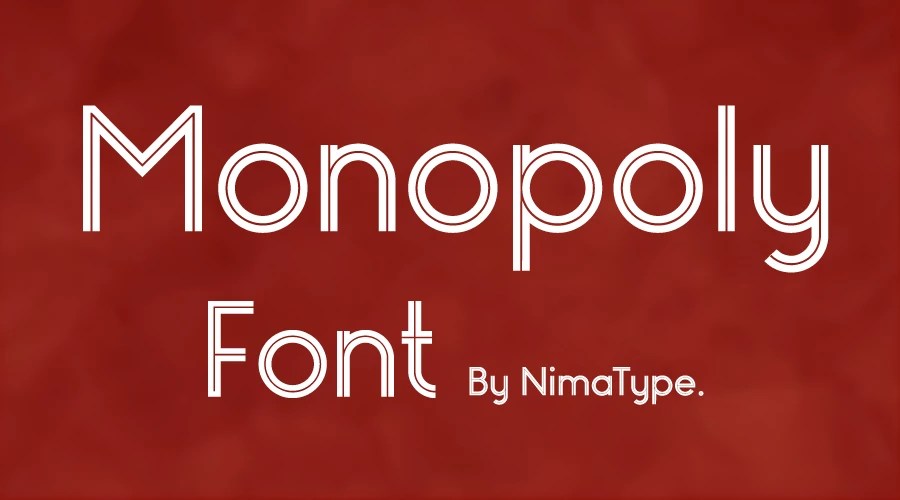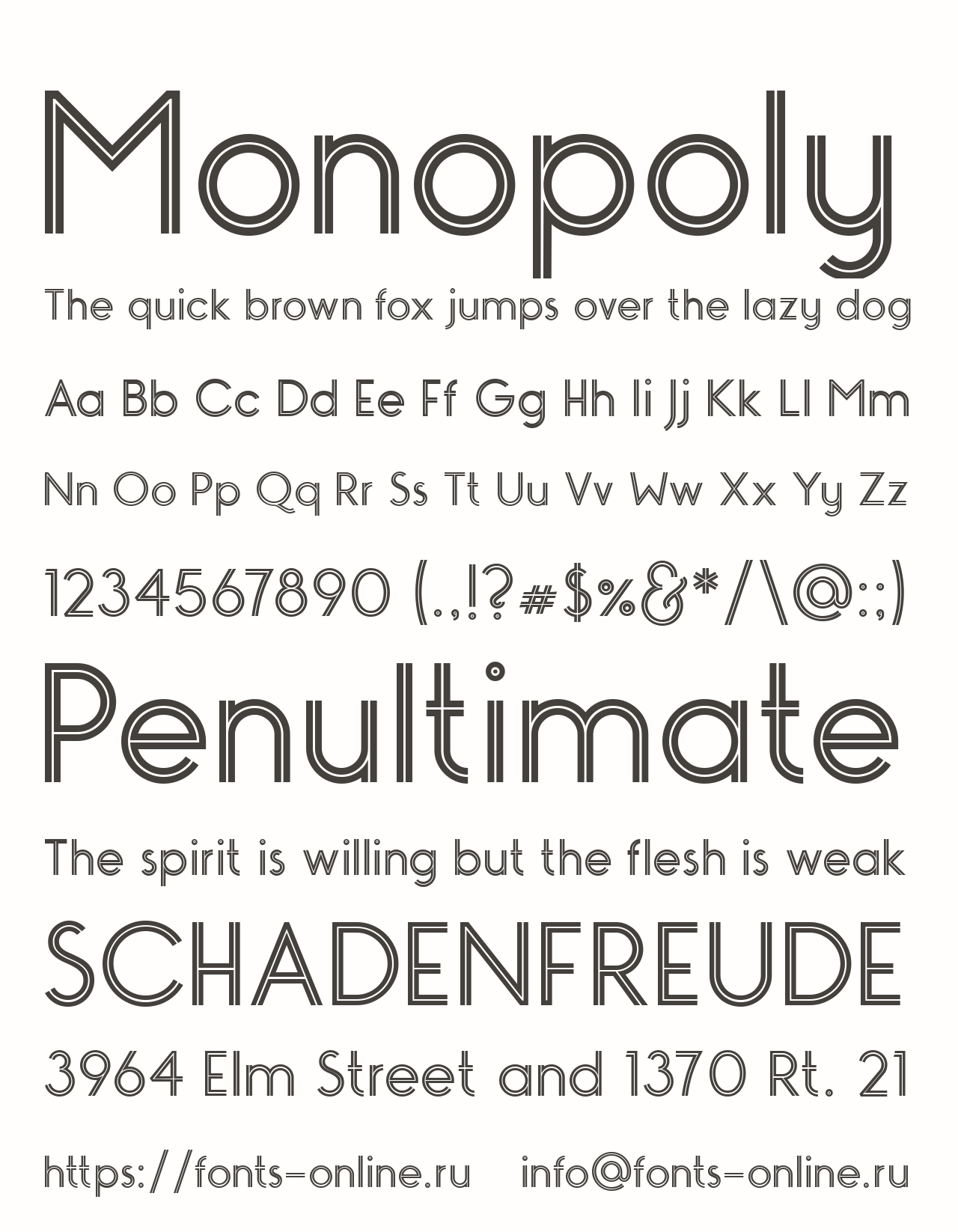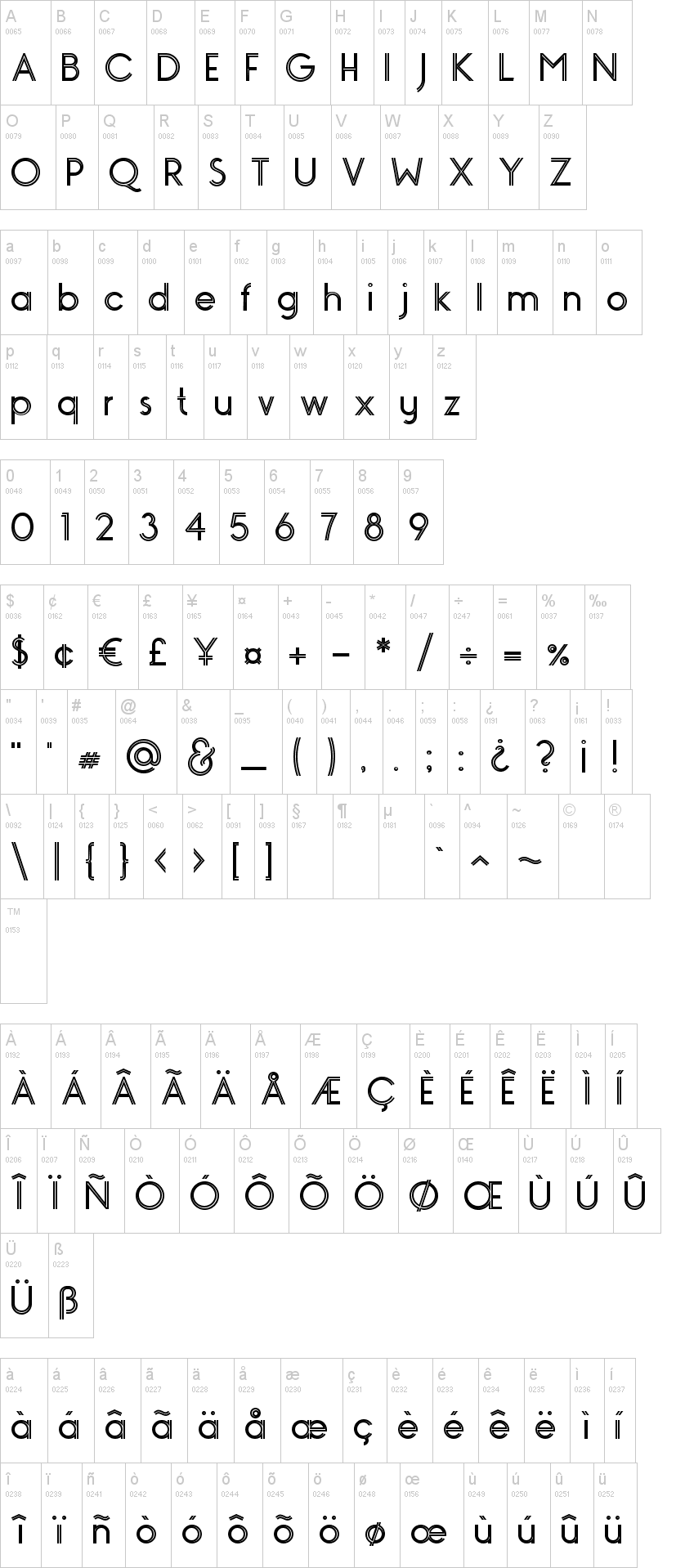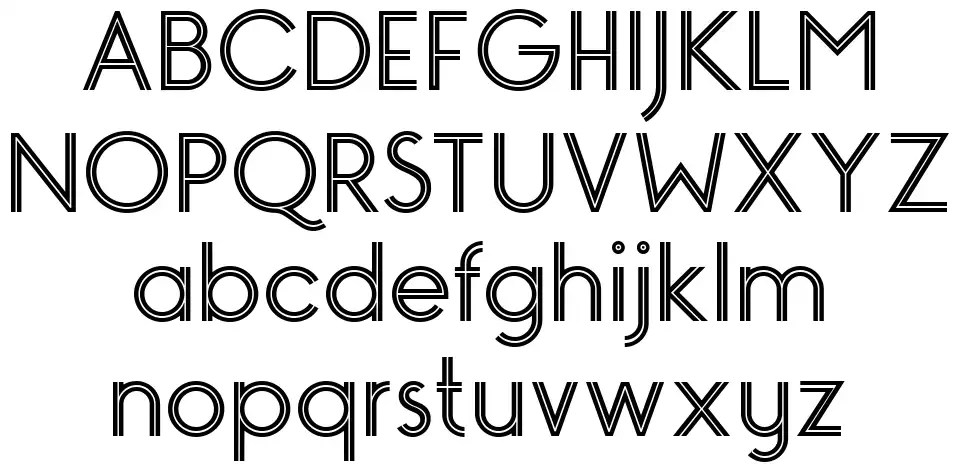
Monopoly Board Font . This edition of the monopoly board game is from 1985, and was sold by parker brothers in the u.s. The name of the font that most closely resembles the one used in the monopoly boardgame logo is a typeface by the name of monopoloy. In the game, players move around the board buying or trading property, developing their properties and. In basic > sans serif. Originally created by italian type designer roberto de vicq de cumptich in 2005, this font is. Monopoly font is the perfect typeface for anyone looking to bring an iconic game to life. It has the logo in the kabel typeface. The font is famous for its basic, clean, and smooth. It was designed in 2016 by the font. Thank you to the person who helped me find the best software to create my own monopoly game.
The name of the font that most closely resembles the one used in the monopoly boardgame logo is a typeface by the name of monopoloy. Monopoly font is the perfect typeface for anyone looking to bring an iconic game to life. The font is famous for its basic, clean, and smooth. This edition of the monopoly board game is from 1985, and was sold by parker brothers in the u.s. It was designed in 2016 by the font. In basic > sans serif. It has the logo in the kabel typeface. Originally created by italian type designer roberto de vicq de cumptich in 2005, this font is. In the game, players move around the board buying or trading property, developing their properties and. Thank you to the person who helped me find the best software to create my own monopoly game.
Monopoly Board Font Thank you to the person who helped me find the best software to create my own monopoly game. Originally created by italian type designer roberto de vicq de cumptich in 2005, this font is. In basic > sans serif. Thank you to the person who helped me find the best software to create my own monopoly game. The name of the font that most closely resembles the one used in the monopoly boardgame logo is a typeface by the name of monopoloy. In the game, players move around the board buying or trading property, developing their properties and. This edition of the monopoly board game is from 1985, and was sold by parker brothers in the u.s. Monopoly font is the perfect typeface for anyone looking to bring an iconic game to life. It has the logo in the kabel typeface. The font is famous for its basic, clean, and smooth. It was designed in 2016 by the font.
Monopoly Font Free Download Monopoly Board Font The name of the font that most closely resembles the one used in the monopoly boardgame logo is a typeface by the name of monopoloy. Originally created by italian type designer roberto de vicq de cumptich in 2005, this font is. It has the logo in the kabel typeface. In the game, players move around the board buying or trading. Monopoly Board Font.
Monopoly Typeface Free Free Fonts Monopoly Board Font In the game, players move around the board buying or trading property, developing their properties and. Monopoly font is the perfect typeface for anyone looking to bring an iconic game to life. Originally created by italian type designer roberto de vicq de cumptich in 2005, this font is. It was designed in 2016 by the font. Thank you to the. Monopoly Board Font.
Monopoly Free Font Free Fonts Monopoly Board Font The font is famous for its basic, clean, and smooth. Monopoly font is the perfect typeface for anyone looking to bring an iconic game to life. This edition of the monopoly board game is from 1985, and was sold by parker brothers in the u.s. It has the logo in the kabel typeface. In the game, players move around the. Monopoly Board Font.
Monopoly 1.000 Fonts Free Download Monopoly Board Font The name of the font that most closely resembles the one used in the monopoly boardgame logo is a typeface by the name of monopoloy. It has the logo in the kabel typeface. Originally created by italian type designer roberto de vicq de cumptich in 2005, this font is. In the game, players move around the board buying or trading. Monopoly Board Font.
Monopoly Font Free Fonts Monopoly Board Font It has the logo in the kabel typeface. This edition of the monopoly board game is from 1985, and was sold by parker brothers in the u.s. The name of the font that most closely resembles the one used in the monopoly boardgame logo is a typeface by the name of monopoloy. In basic > sans serif. It was designed. Monopoly Board Font.
Monopoly font Monopoly Board Font In the game, players move around the board buying or trading property, developing their properties and. Thank you to the person who helped me find the best software to create my own monopoly game. In basic > sans serif. This edition of the monopoly board game is from 1985, and was sold by parker brothers in the u.s. Monopoly font. Monopoly Board Font.
Monopoly Free Font Free Fonts Fribly Monopoly Board Font It was designed in 2016 by the font. In basic > sans serif. It has the logo in the kabel typeface. The font is famous for its basic, clean, and smooth. Thank you to the person who helped me find the best software to create my own monopoly game. This edition of the monopoly board game is from 1985, and. Monopoly Board Font.
Monopoly Inline Font Monopoly Board Font Originally created by italian type designer roberto de vicq de cumptich in 2005, this font is. This edition of the monopoly board game is from 1985, and was sold by parker brothers in the u.s. In the game, players move around the board buying or trading property, developing their properties and. It was designed in 2016 by the font. The. Monopoly Board Font.
Monopoly Font Free Fonts Monopoly Board Font In basic > sans serif. Originally created by italian type designer roberto de vicq de cumptich in 2005, this font is. In the game, players move around the board buying or trading property, developing their properties and. Thank you to the person who helped me find the best software to create my own monopoly game. The font is famous for. Monopoly Board Font.
Monopoly Font Free Download FontsBee Free fonts download, Serif Monopoly Board Font Originally created by italian type designer roberto de vicq de cumptich in 2005, this font is. Thank you to the person who helped me find the best software to create my own monopoly game. In the game, players move around the board buying or trading property, developing their properties and. This edition of the monopoly board game is from 1985,. Monopoly Board Font.